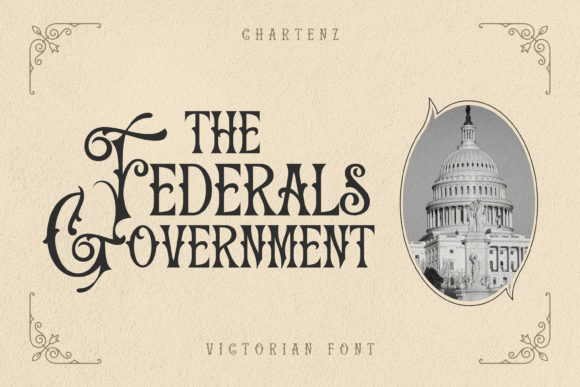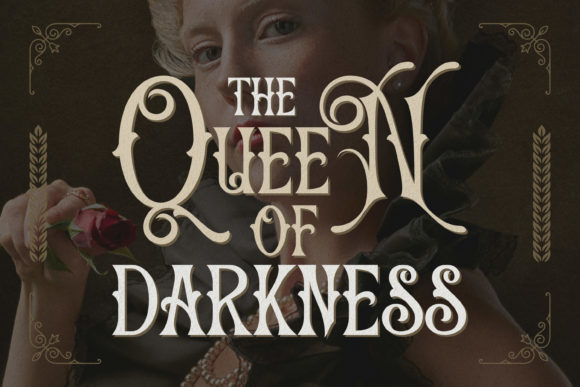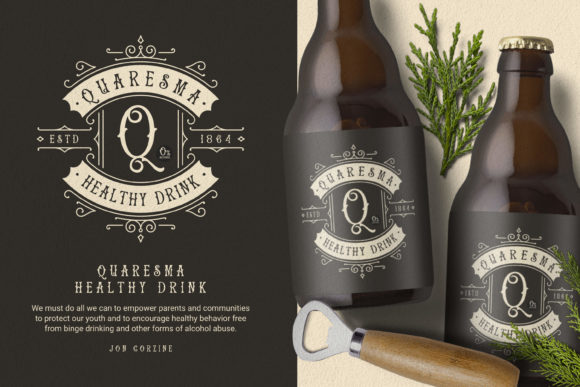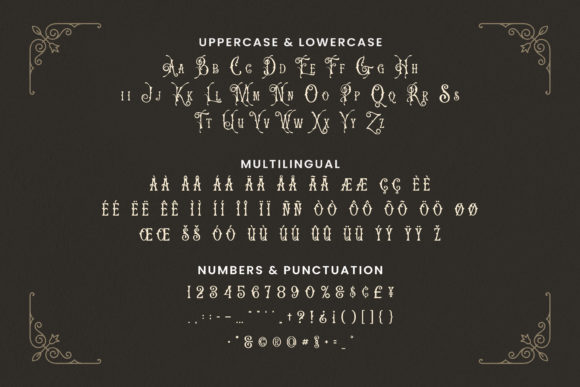
Introducing Chartenz Font: The Ultimate Bold Display Font for Designers and Crafters
Are you tired of using the same old fonts in your designs? Do you want to add a touch of vintage flair to your creations? Look no further than Chartenz Font, a thick lettered, vintage styled, and bold display font that’s perfect for designers and crafters alike. In this article, we’ll take a closer look at Chartenz Font, its features, and how you can use it to take your designs to the next level.
What is Chartenz Font?
Chartenz Font is a bold display font that’s inspired by vintage typography. Its thick letters and classic style make it perfect for creating eye-catching headings, titles, and logos. Whether you’re designing a poster, a business card, or a website, Chartenz Font is sure to make a statement.
Key Features of Chartenz Font
- PUA Encoded: Chartenz Font is PUA (Private Use Area) encoded, which means you can access all of the glyphs and swashes with ease. This makes it easy to customize your text and add unique touches to your designs.
- Thick Lettered: Chartenz Font features thick, bold letters that are perfect for creating eye-catching headings and titles.
- Vintage Styled: The font’s vintage style is inspired by classic typography, making it perfect for designers who want to add a touch of nostalgia to their designs.
- Bold Display Font: Chartenz Font is designed to make a statement. Its bold style makes it perfect for creating headings, titles, and logos that demand attention.
How to Use Chartenz Font in Your Designs
Chartenz Font is easy to use and can be incorporated into your designs in a variety of ways. Here are a few ideas to get you started:
- Headings and Titles: Use Chartenz Font to create bold, eye-catching headings and titles for your posters, flyers, and websites.
- Logos and Branding: Chartenz Font is perfect for creating unique and memorable logos and branding elements.
- Signage and Displays: The font’s bold style makes it perfect for creating eye-catching signage and displays.
Tips and Tricks for Getting the Most Out of Chartenz Font
Here are a few tips and tricks to help you get the most out of Chartenz Font:
- Experiment with Different Colors: Chartenz Font looks great in a variety of colors. Experiment with different colors to find the one that works best for your design.
- Use it with Other Fonts: Chartenz Font pairs well with other fonts. Try using it with a sans-serif font to create a bold and modern look.
- Don’t be Afraid to Get Creative: Chartenz Font is a versatile font that can be used in a variety of creative ways. Don’t be afraid to experiment and try new things.
Chartenz Font is a bold, vintage styled, and thick lettered display font that’s perfect for designers and crafters alike. Its PUA encoding makes it easy to access all of the glyphs and swashes, and its bold style makes it perfect for creating eye-catching headings, titles, and logos. Whether you’re designing a poster, a business card, or a website, Chartenz Font is sure to make a statement. So why wait? Download Chartenz Font today and start creating amazing designs!
- What is Chartenz Font? Chartenz Font is a bold display font that’s inspired by vintage typography.
- Is Chartenz Font PUA encoded? Yes, Chartenz Font is PUA encoded, making it easy to access all of the glyphs and swashes.